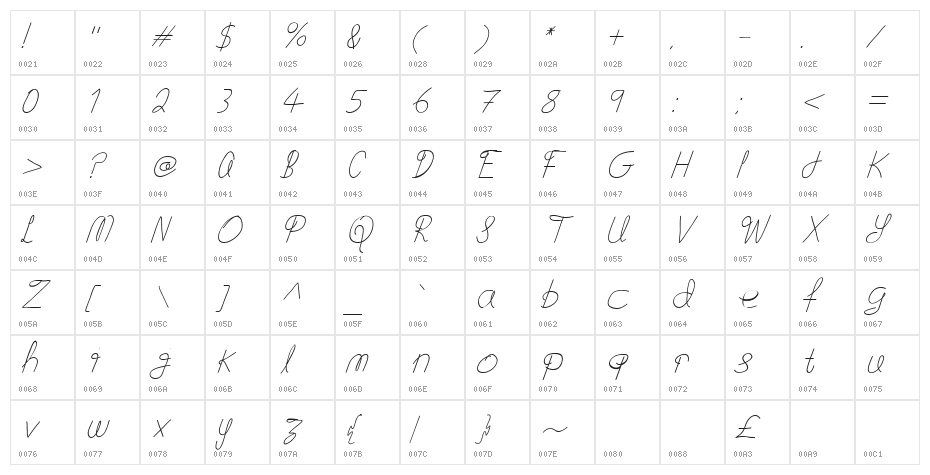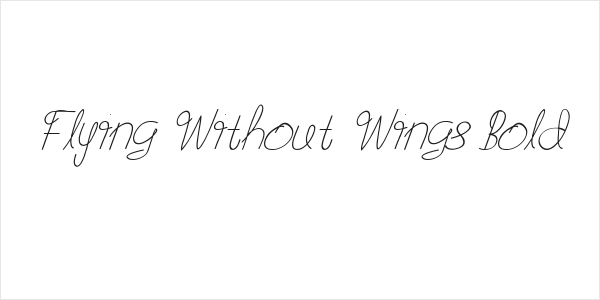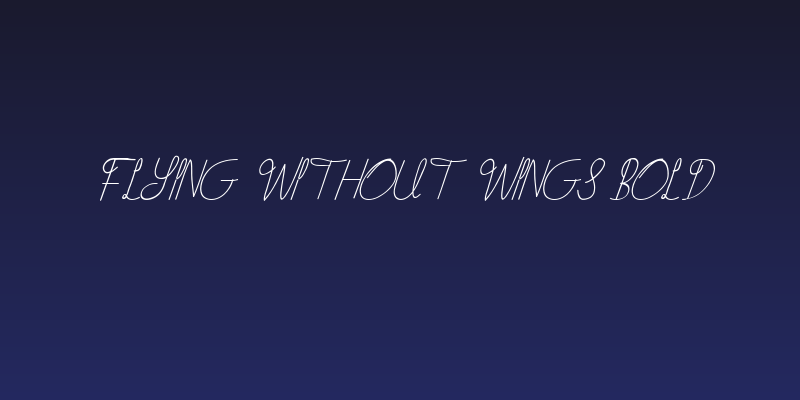
Flying Without Wings Bold Font
Flying Without Wings Bold Description
This font features a flowing, cursive style that mimics elegant handwriting. The characters are connected, creating a seamless and fluid appearance. The strokes are smooth and consistent, with a slight slant to the right, enhancing the handwritten feel. The uppercase letters are distinct and slightly larger than the lowercase, maintaining readability while adding a touch of sophistication. Numbers and special characters are crafted with the same attention to detail, ensuring a cohesive look across all glyphs. This font exudes a sense of grace and personal touch, making it ideal for projects that require a humanistic and approachable aesthetic.
| Overall Style | Elegant, Handwritten |
| Use Case | Logos, Invitations, Personal Correspondence |
| Proposed Projects | Ideal for wedding invitations, personal letters, greeting cards, and branding materials that require a personal touch. |